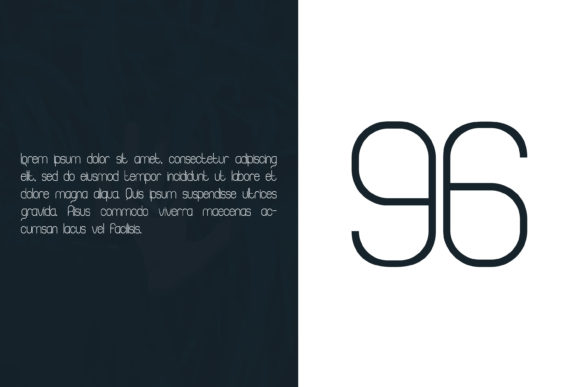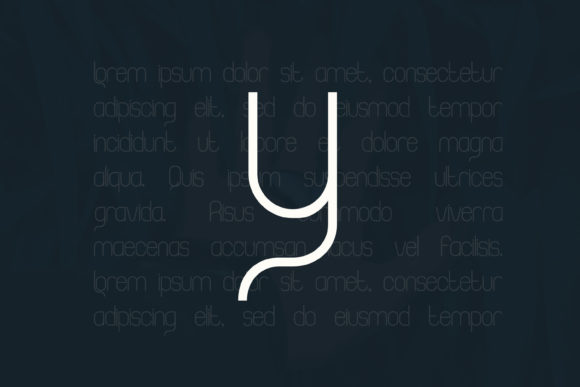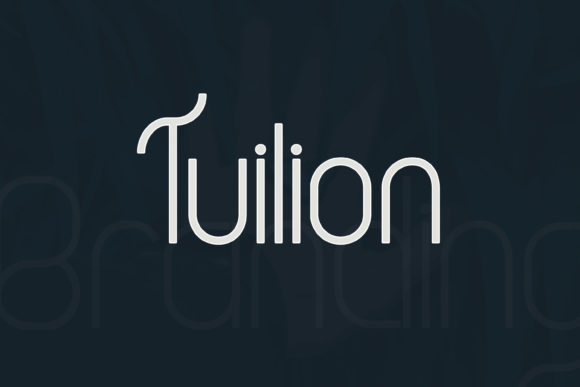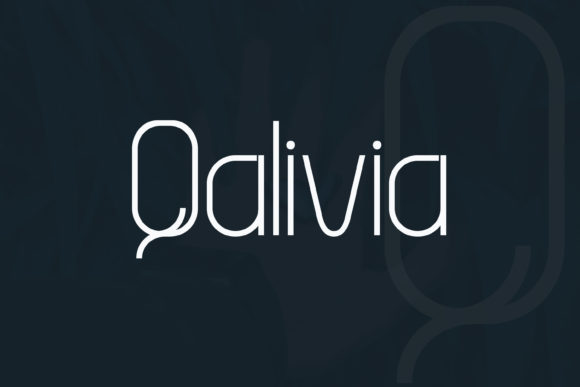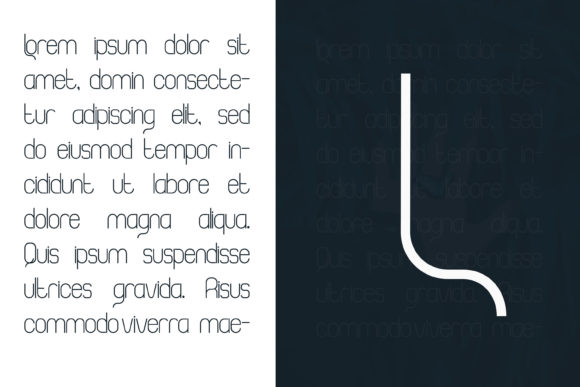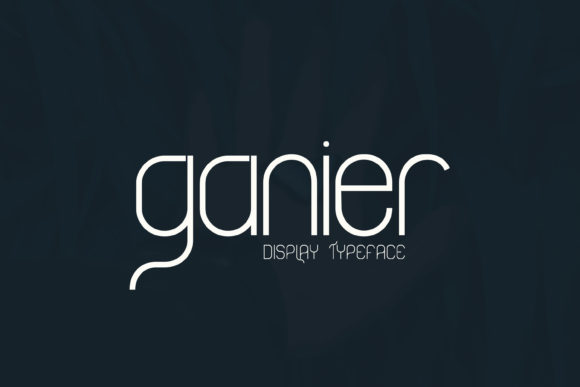
Ganier Font: Elevate Your Designs with a Minimal and Thin Sans Serif
In the world of typography, fonts play a crucial role in making or breaking a design. A well-chosen font can elevate your creative project, making it stand out from the crowd. If you’re on the hunt for a font that exudes simplicity, elegance, and versatility, look no further than the Ganier Font. This minimal and thin lettered sans serif font is perfect for designers and crafters looking to add a touch of sophistication to their work.
What is Ganier Font?
Ganier is a carefully crafted sans serif font that boasts a minimalist and thin lettered design. Its clean lines, subtle curves, and balanced proportions make it an excellent choice for a wide range of projects. Whether you’re working on a logo, branding materials, website, or social media graphics, Ganier Font is sure to impress.
Key Features of Ganier Font
• Minimalist Design: Ganier Font features a sleek and minimalist design that will add a touch of elegance to your projects.
• Thin Lettering: The font’s thin lettering makes it perfect for designs that require a subtle and sophisticated look.
• Sans Serif: The sans serif design of Ganier Font ensures that your text remains clean and easy to read, even at small sizes.
• Versatile: Ganier Font can be used in a wide range of projects, from logos and branding materials to websites and social media graphics.
Why Choose Ganier Font?
So, why should you choose Ganier Font for your next project? Here are just a few reasons:
• Easy to Read: Despite its thin lettering, Ganier Font remains easy to read, even at small sizes.
• Highly Versatile: Ganier Font can be used in a wide range of projects, making it a great addition to your font library.
• Unique Look: The font’s minimalist design and thin lettering give it a unique look that will set your projects apart from the crowd.
• Professional: Ganier Font has a professional look and feel, making it perfect for business and corporate projects.
How to Use Ganier Font
In conclusion, Ganier Font is a versatile and elegant sans serif font that is perfect for designers and crafters looking to add a touch of sophistication to their work. Its minimalist design, thin lettering, and clean lines make it an excellent choice for a wide range of projects. Whether you’re working on a logo, branding materials, website, or social media graphics, Ganier Font is sure to impress. So why wait? Add Ganier Font to your creative ideas and notice how it makes them stand out!